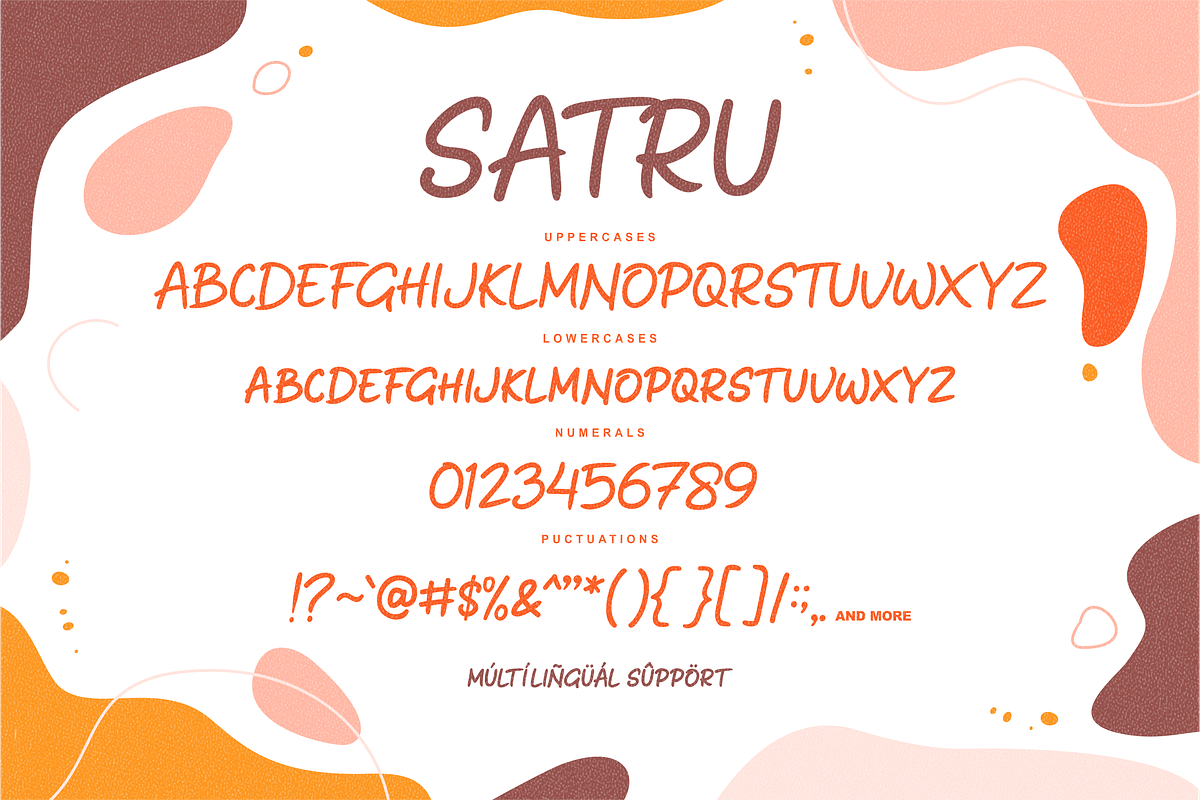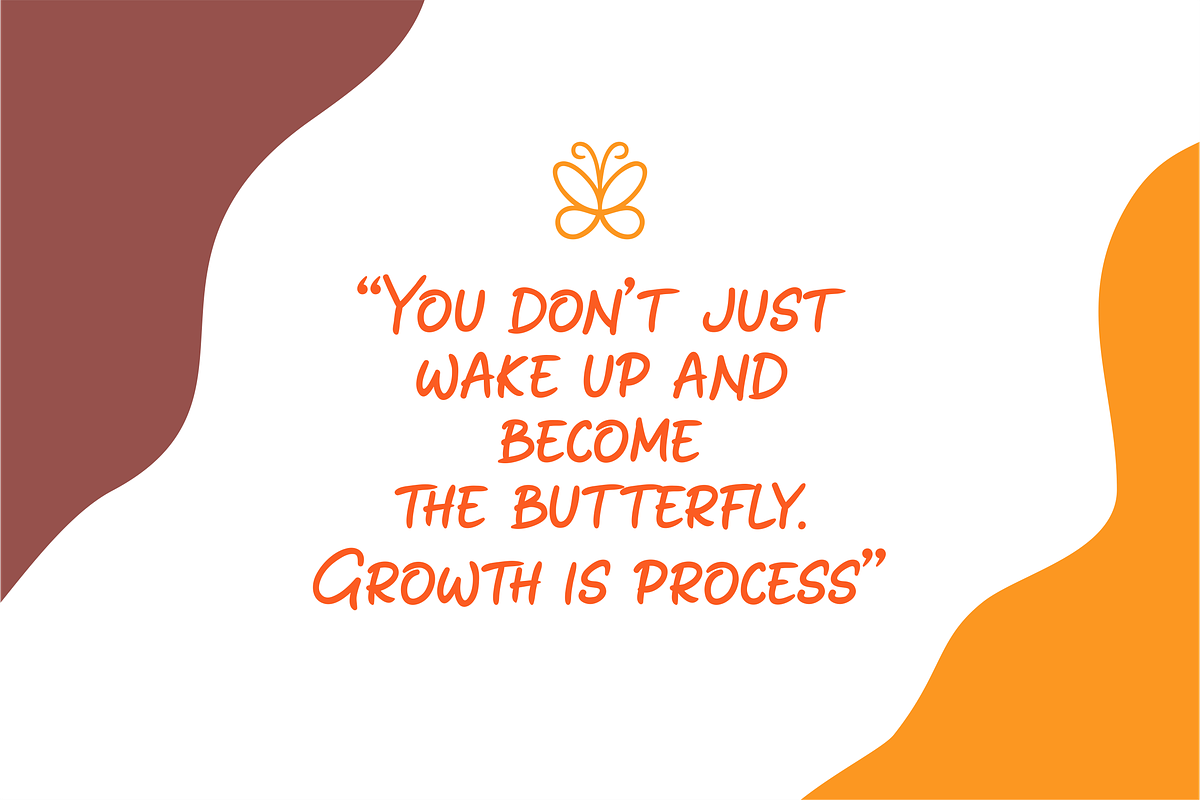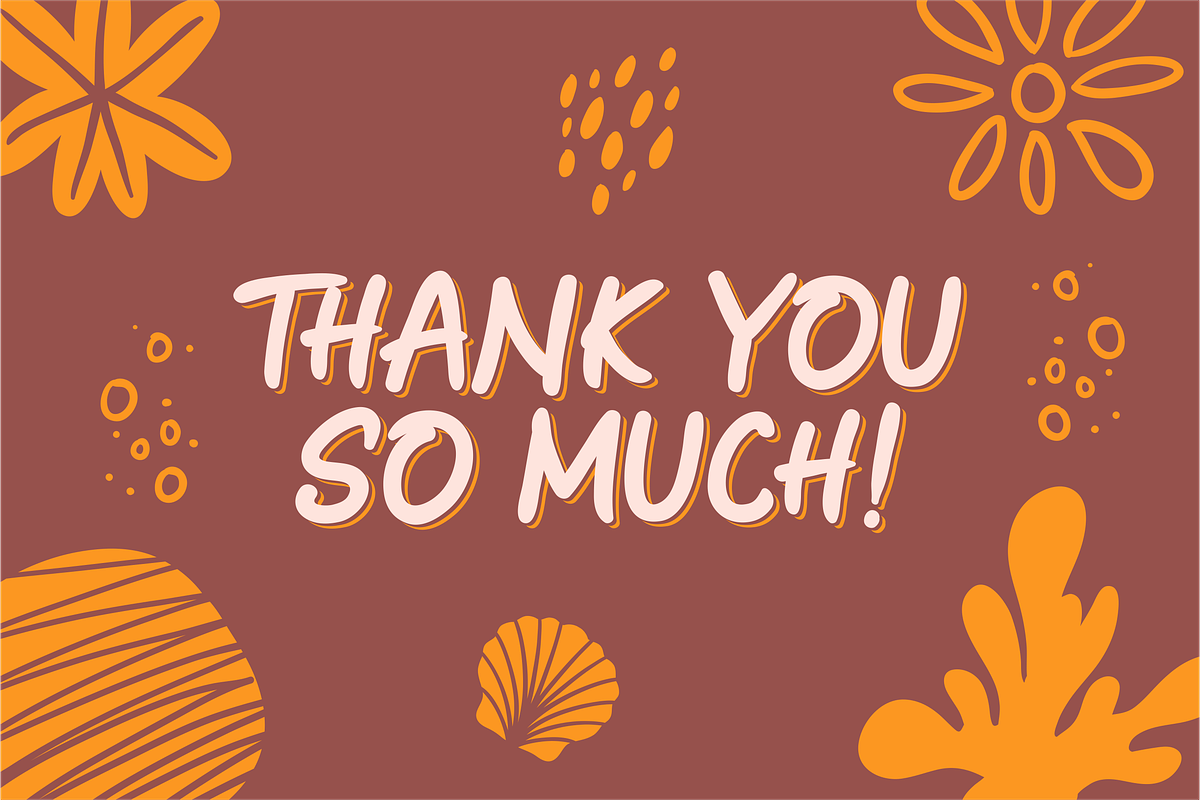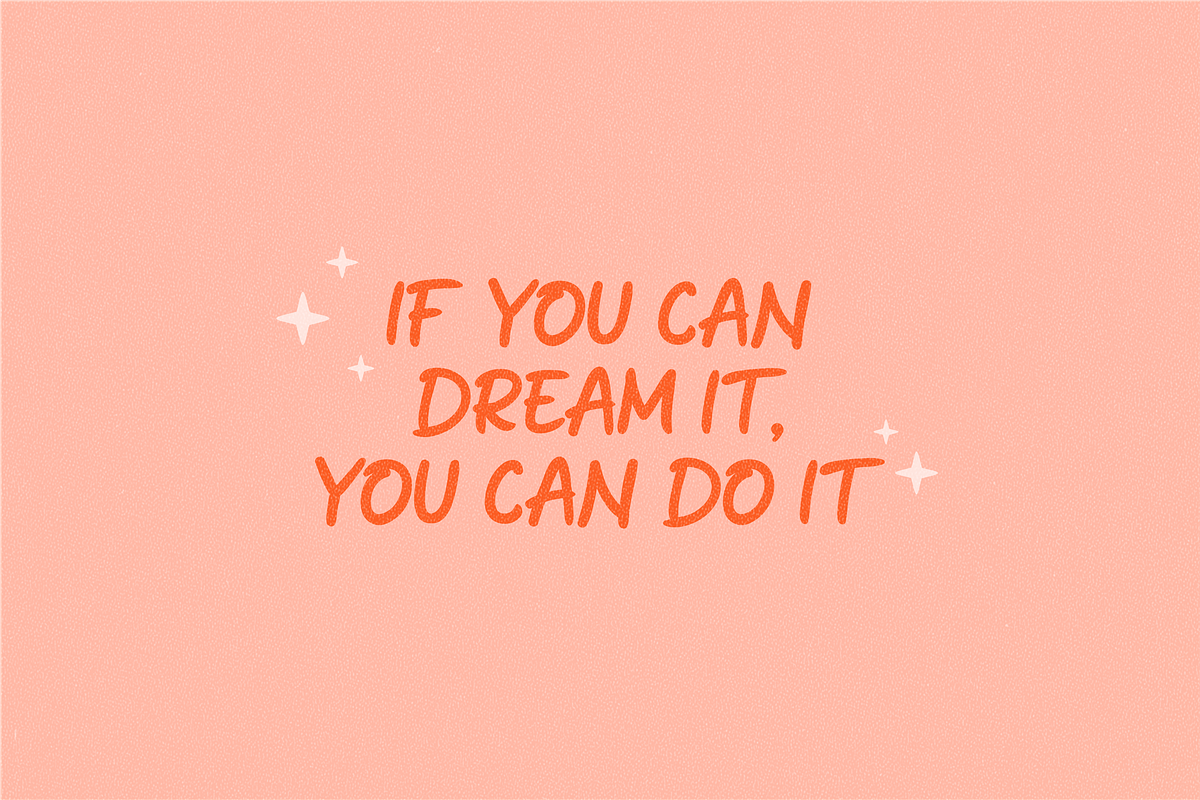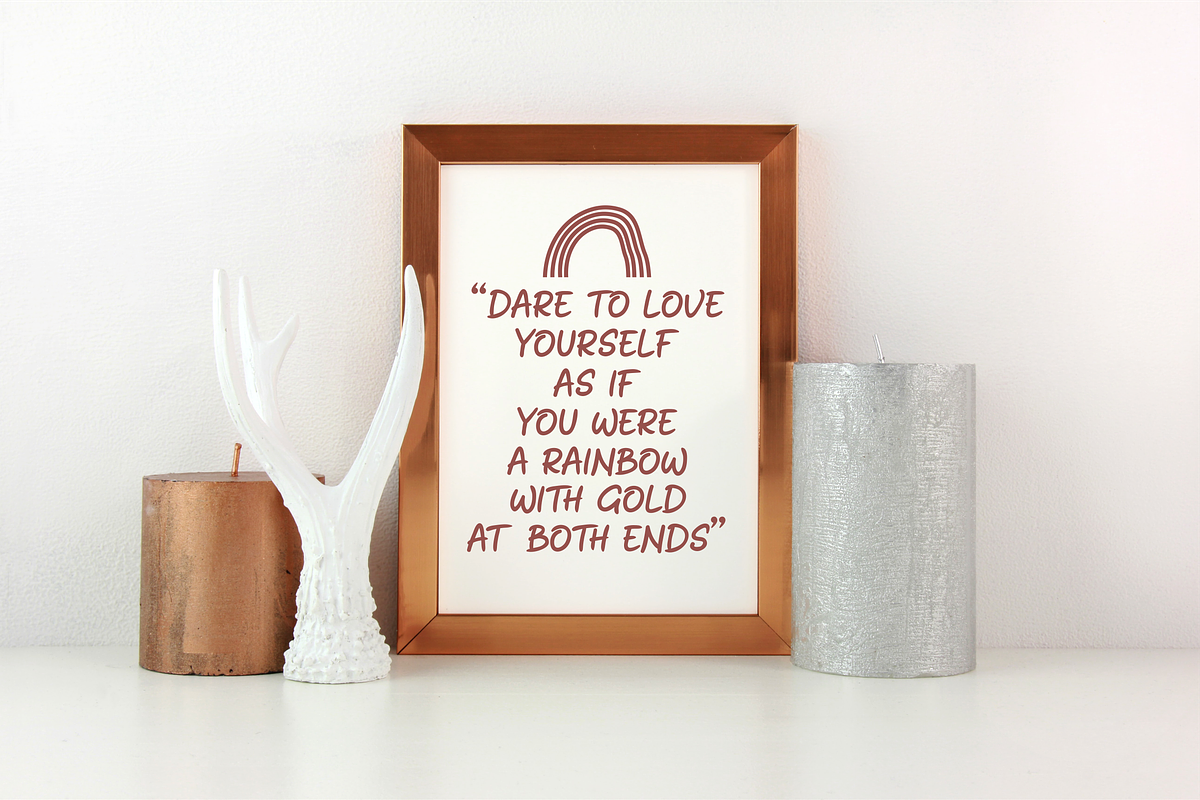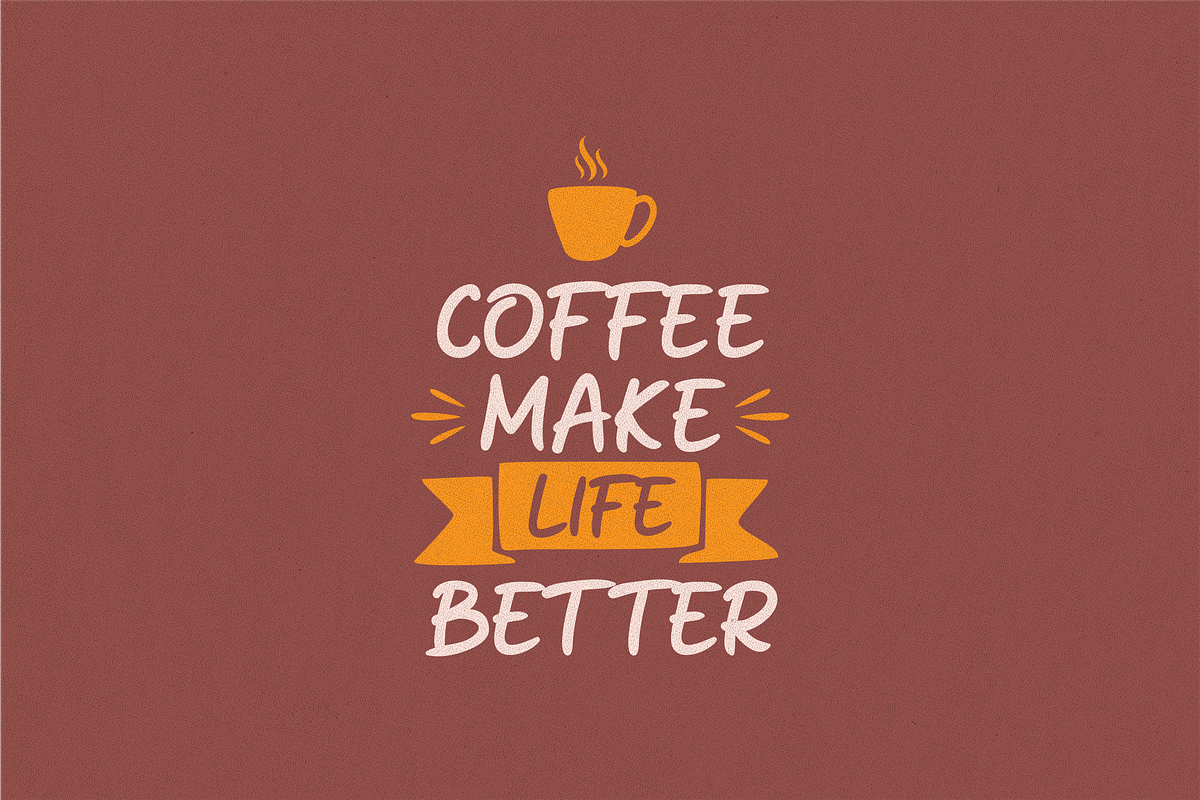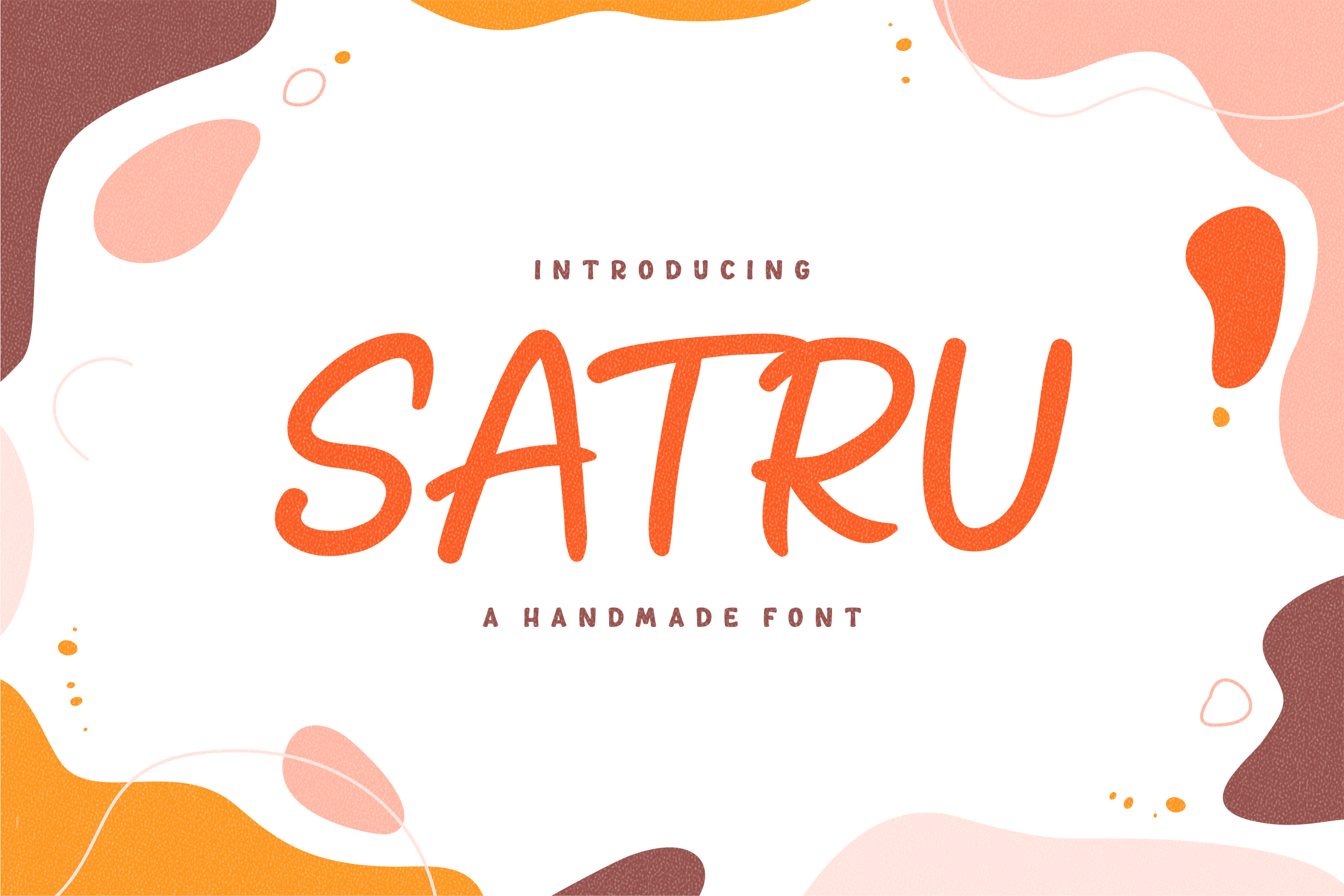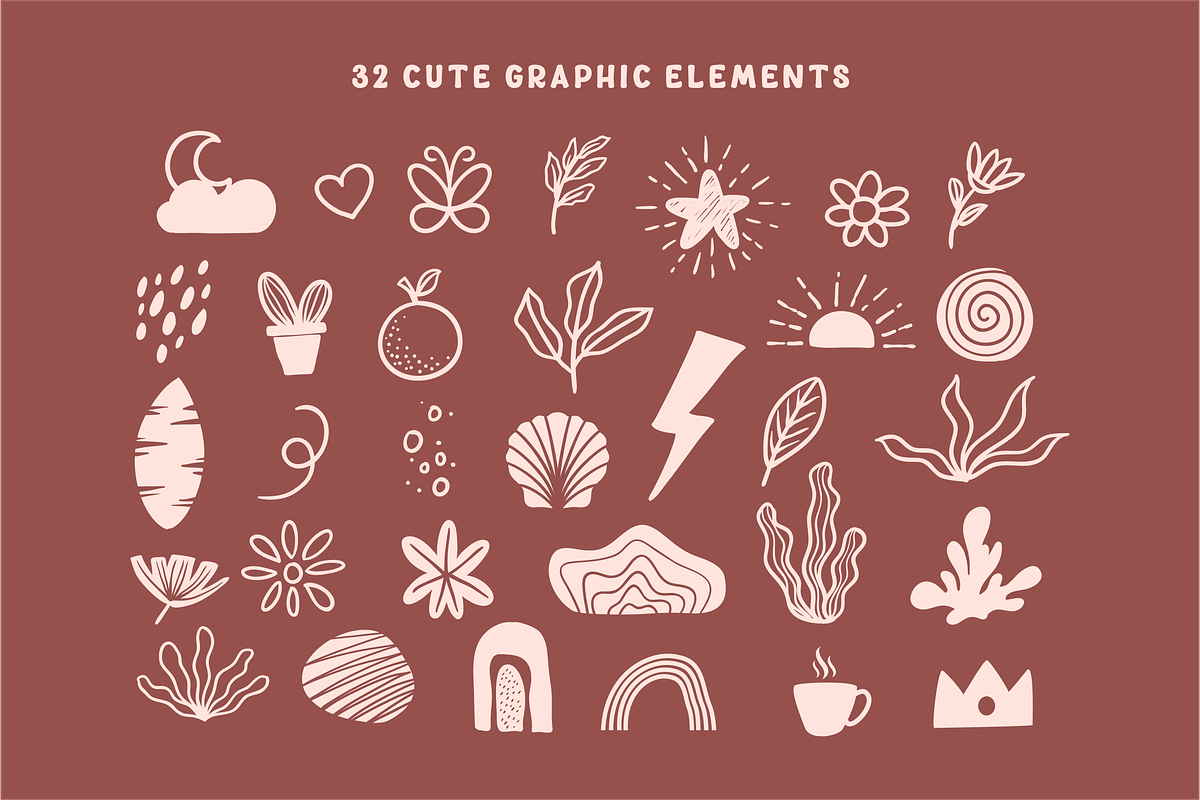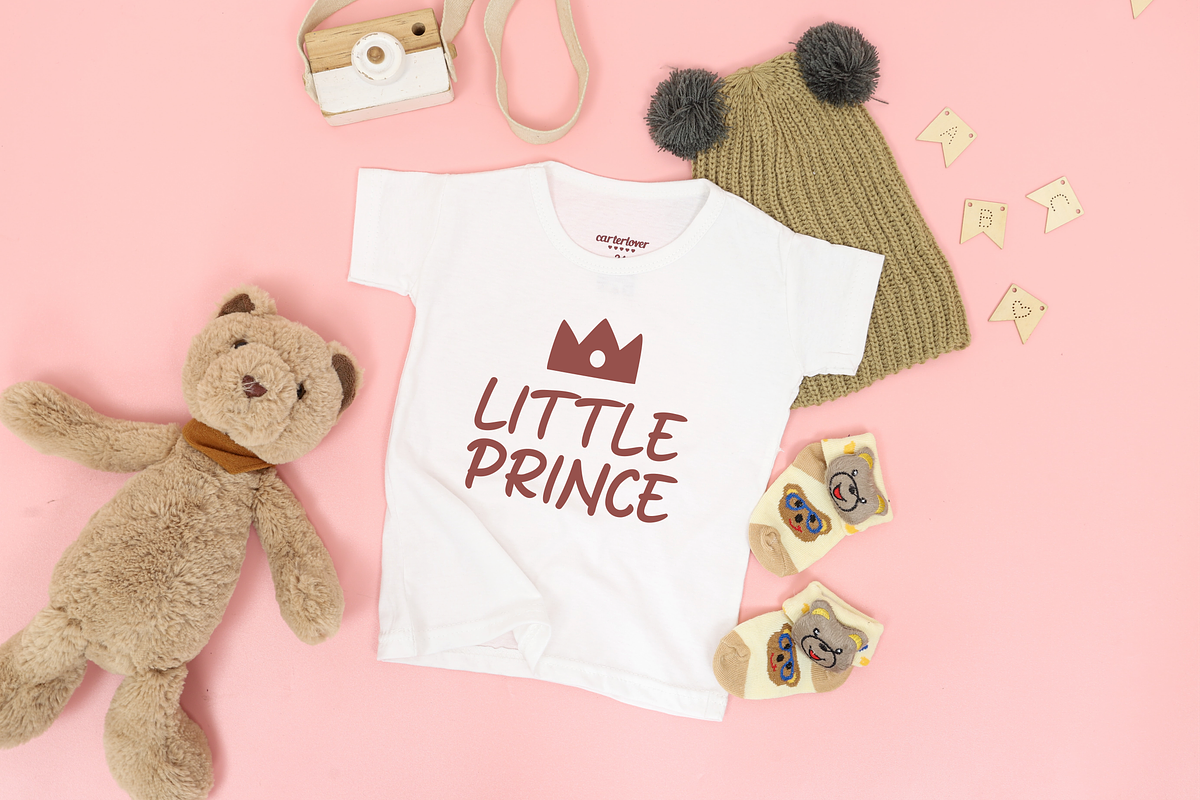
Satru Handmade Playful Display Font
Hi,,, Introducing "Satru" a Handwritten Font!!!
Satru font is a Handmade Playful font which is can be used in happy and fun concept. This font is very good with multilingual support and 32 Cute graphic elements to complete your need. Very suitable to make a playful branding, Logo, Poster, Film, magazine, quotes, packaging, Quotes and other.